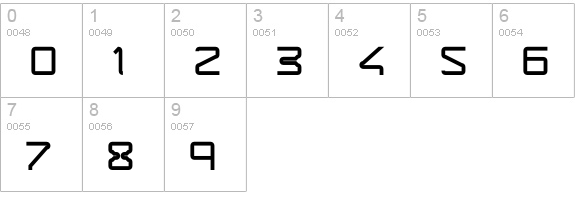
Assembler-Bold Font Details
Assembler-Bold is a strong, high-contrast variant in the Assembler typeface family \xE2\x80\x94 well suited to headlines, attention-grabbing titles, and strong calls-to-action.
Assembler-Bold font is a modern and stylish typeface that exudes confidence and strength. With its bold and clean design, this font is perfect for making a statement in any project. The sharp edges and strong lines give Assembler-Bold a futuristic and technological feel, making it ideal for branding, headlines, and logos. And the best part? Assembler-Bold font is available for free download at FontsMarket.com! So you can easily incorporate this striking font into your designs without breaking the bank. Don't miss out on the opportunity to add Assembler-Bold to your font collection and elevate your design projects to the next level.